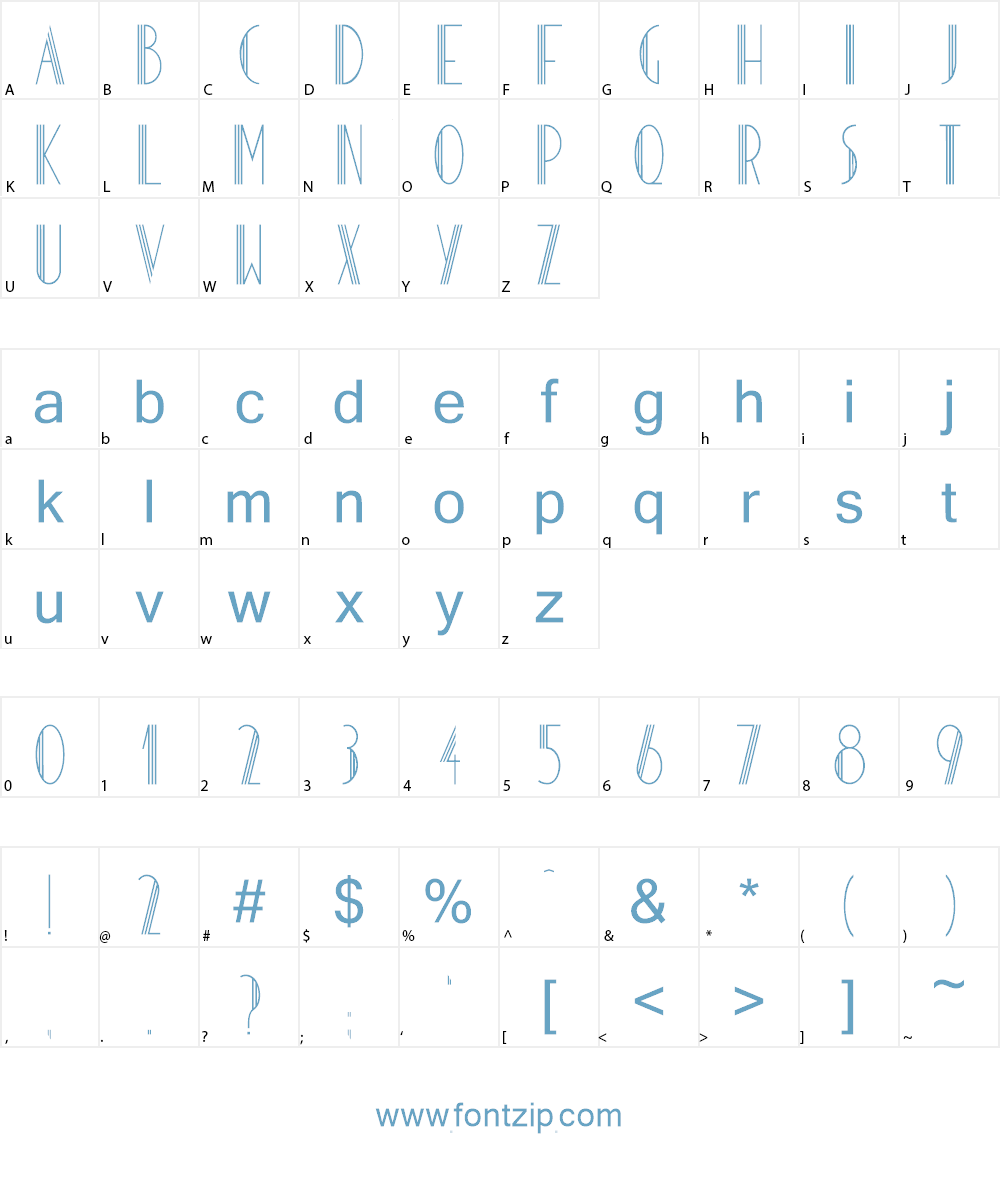
Hi, I'm 17 and this is my first font. This typeface is inspired by the "Art Deco" movement which appeared during the 1920s. Free for personal and non-profit use, it is meant to be used for headlines/titles, or on posters. It contains A-Z characters (with some accented glyphs), numbers 0-9 and basic punctuation (?!,;:.-_ and quotation marks).